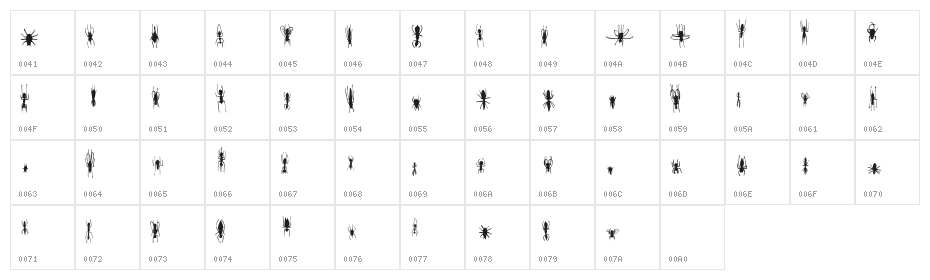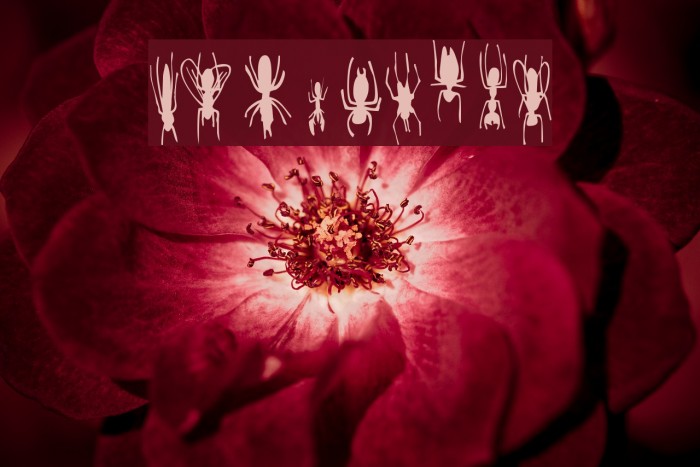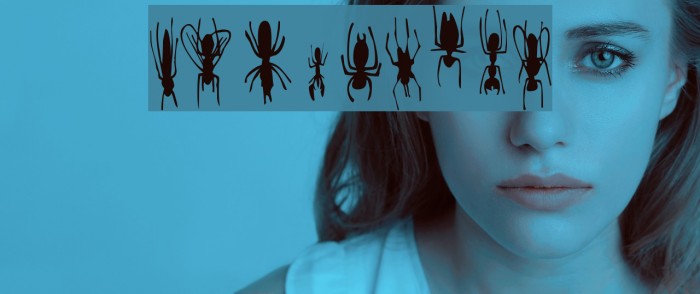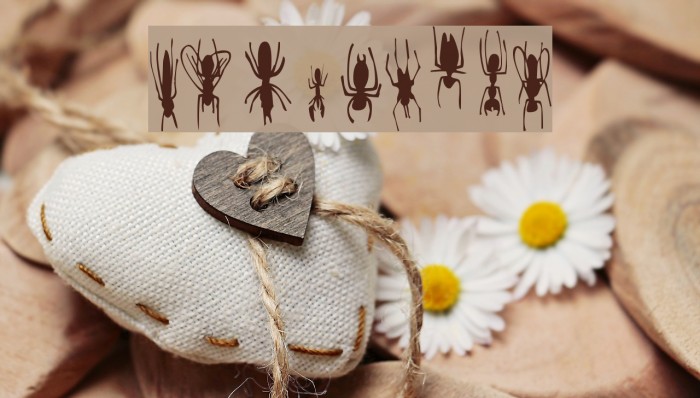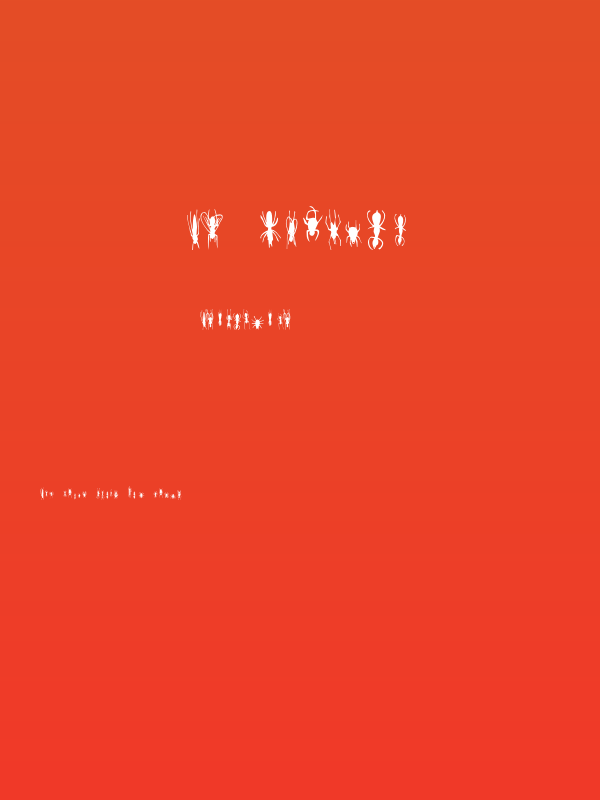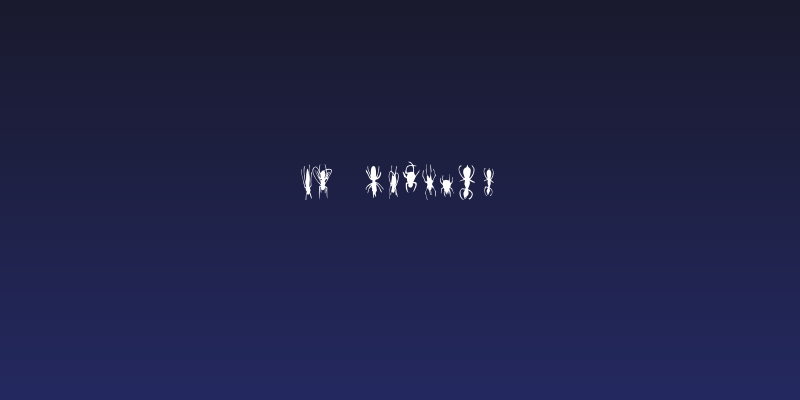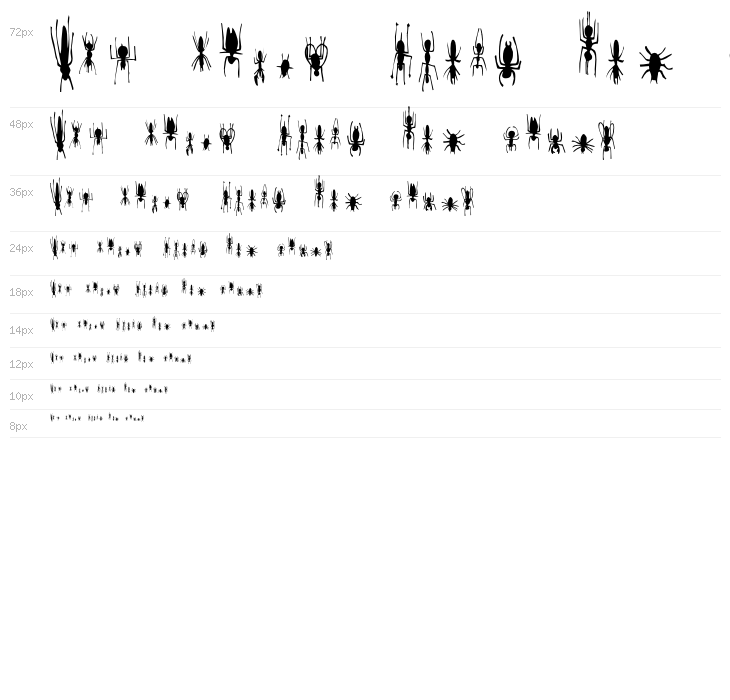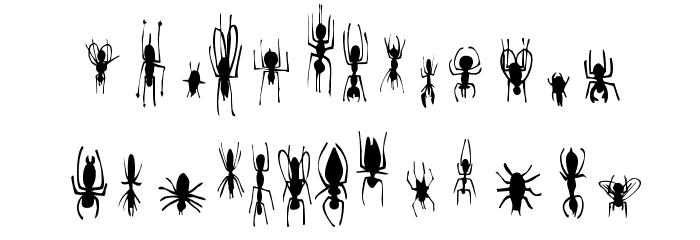
FE-WinBugs Font
FE-WinBugs Description
A highly decorative and playful font where each character is represented by a unique insect or bug illustration, with varying shapes and limb placements, creating a whimsical and organic appearance.
| Overall Style | Decorative, Whimsical, Playful |
| Use Case | Logos, Posters, Titles, Themed graphics |
| Proposed Projects | Halloween posters, children's books, science or nature-themed event branding, quirky invitations, educational materials. |